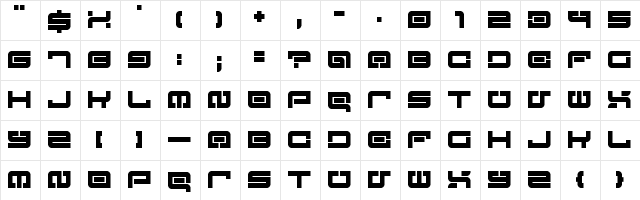
Lost in Future Regular Free Font
Lost in Future Regular
Designer: cablecomputer
Design Context for Lost in Future
Lost in Future has a distinctly futuristic character, with geometric precision and clean angles that feel at home in technology, gaming, and sci-fi contexts.
Pro Tip: Try Lost in Future with generous letter-spacing in UI labels and navigation - the geometric forms benefit from room to breathe.